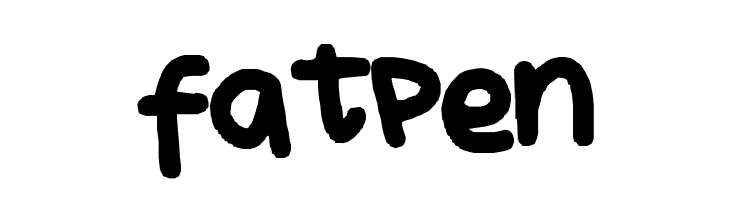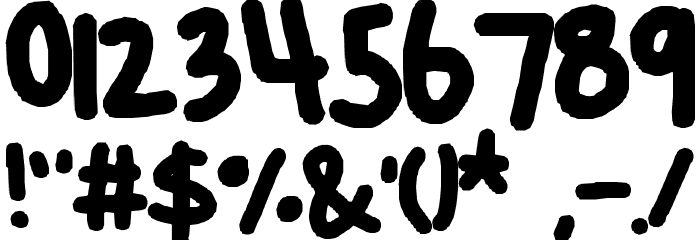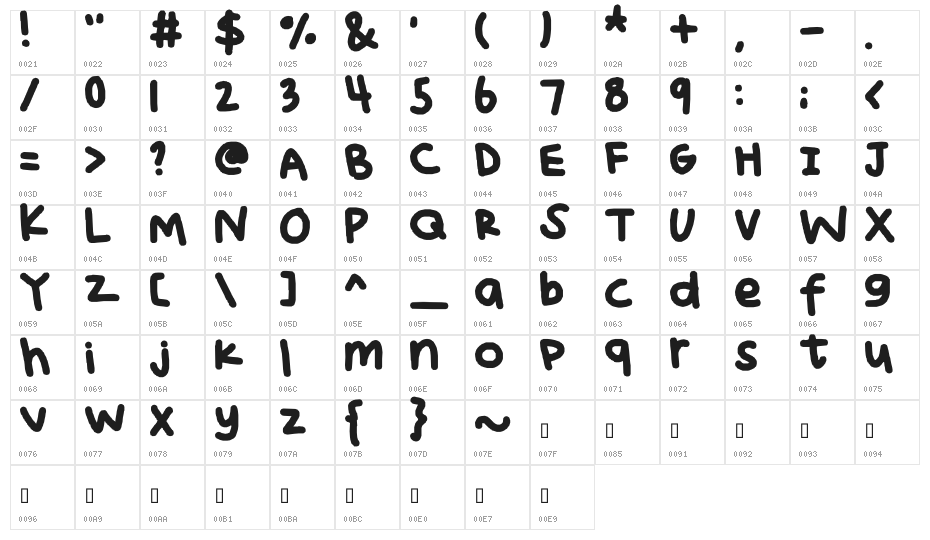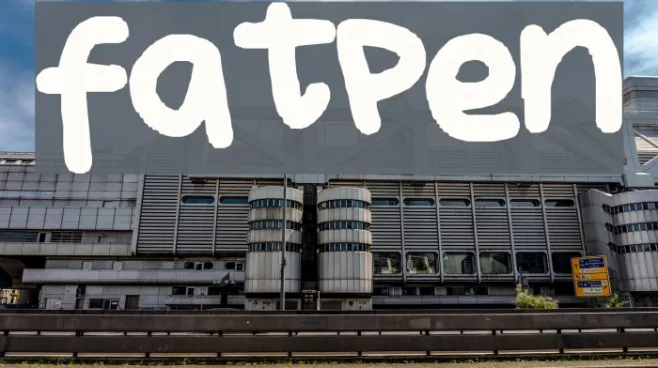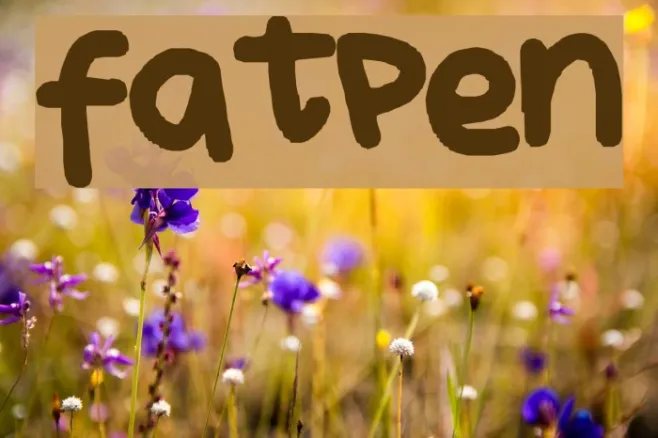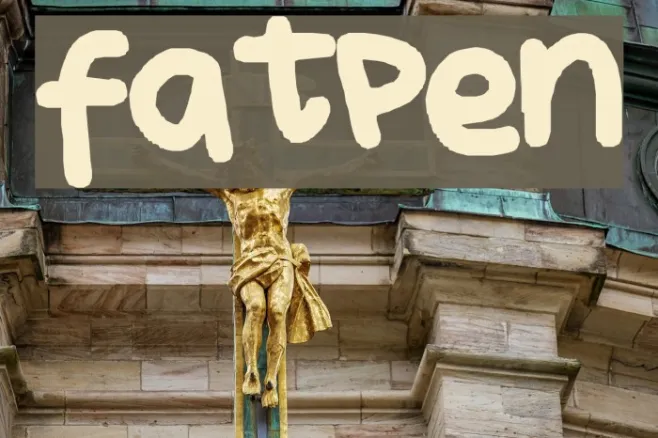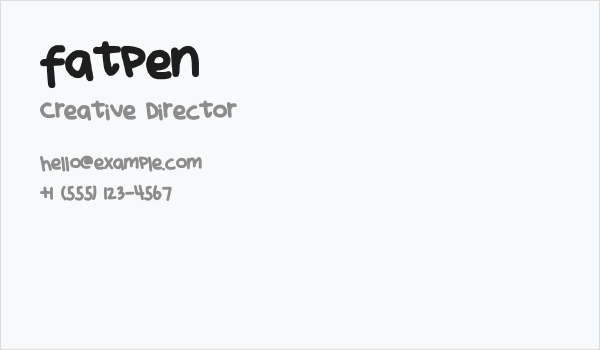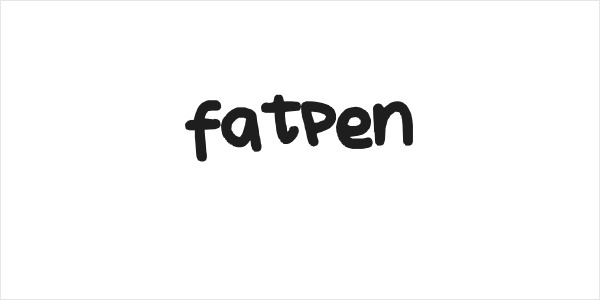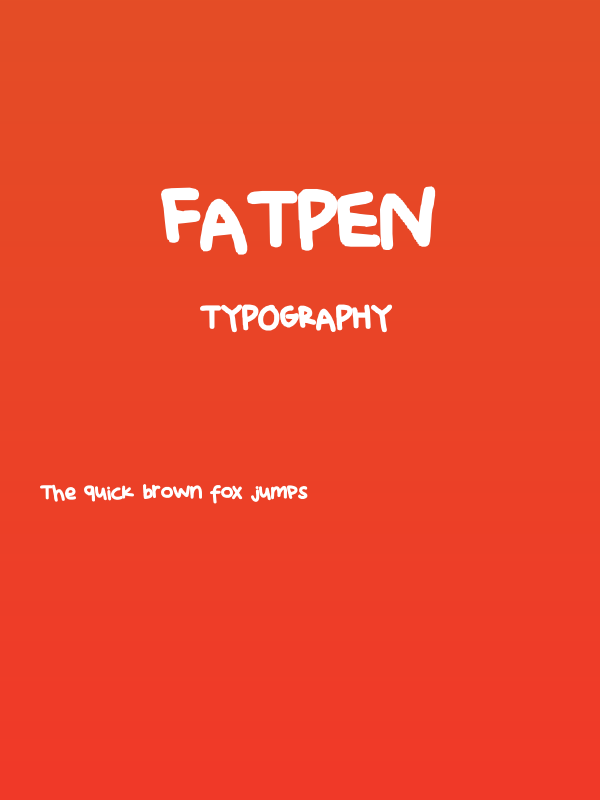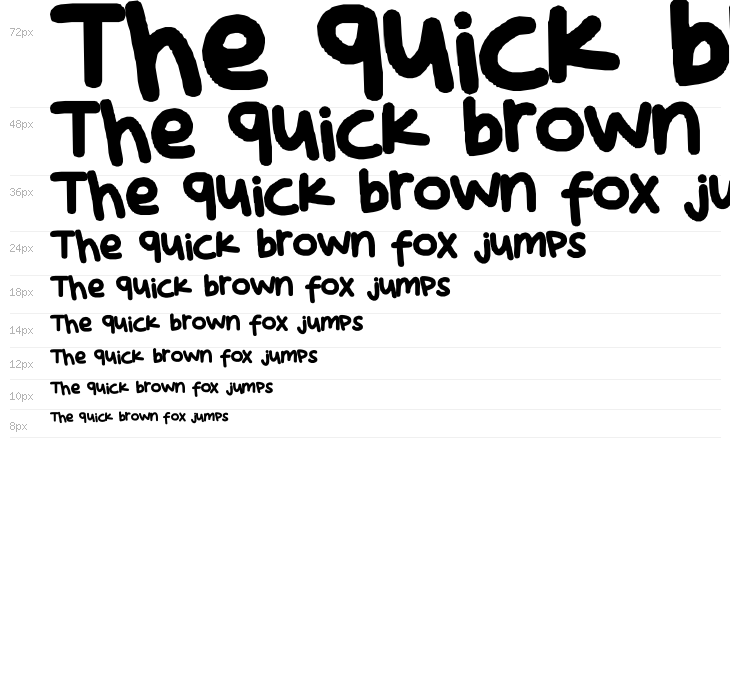
fatpen Font
fatpen Description
This font features a bold, playful style with thick, rounded strokes that give it a casual and friendly appearance. The characters are slightly irregular, adding a hand-drawn feel that enhances its informal charm. The uppercase and lowercase letters maintain consistent proportions, while the numbers and special characters follow the same bold and rounded design. This font's unique personality makes it stand out, perfect for projects that require a touch of whimsy and creativity.
| Proposed Projects | Ideal for children's books, comic strips, playful branding, and casual invitations. |